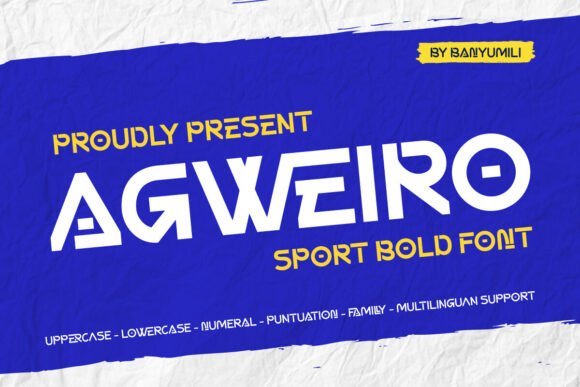
The Winning Combination: Unlocking the Power of Agweiro Font
Do you remember that moment when your favorite team scores a winning goal, and you feel an instant rush of adrenaline and excitement? The thrill of competition is what drives us, and it’s what inspires designers to create bold and captivating visual identities for sports brands. To elevate your sports designs and capture that winning spirit, you need a font that’s just as bold and dynamic as the athletes who use it.
That’s where Agweiro Font comes in – a powerful and angular typeface designed specifically for sports-related designs. With its confident and impactful style, Agweiro Font is the perfect tool for creating team logos, posters, and other sports-themed visual elements that leave a lasting impression.
Whether you’re a seasoned designer or just starting out, Agweiro Font offers a wealth of creative possibilities and value, from its style alternatives to multilingual support. By incorporating this font into your designs, you’ll be able to tap into the same energy and determination that drives athletes to win.
Agweiro Font Key Features
- Font Family: Agweiro Font is a sans-serif typeface designed to be highly legible in digital environments.
- Unique Characteristics: Agweiro Font features a unique blend of modern and geometric elements, resulting in a clean and highly readable design.
- Language Support: Supports a wide range of languages, including Latin, Greek, and Cyrillic alphabets.
Designer Review: Agweiro Font
I recently had the chance to work with Agweiro Font, and I have to say it’s a mixed bag. Here are my thoughts on what works and what doesn’t.
- Agweiro Font has a beautiful, elegant feel to it. The lines are smooth, and the curves are well-executed.
- The font is highly legible, even at smaller font sizes.
- The font family is quite versatile, with multiple weights and styles to choose from.
- One of the biggest issues I had with Agweiro Font is the lack of OpenType features. This can make it difficult to achieve certain typography effects.
- The font is also quite heavy, which can make it difficult to use in situations where a more lightweight font is needed.
Overall, I think Agweiro Font is a solid choice for projects where you need a elegant, high-legibility font. However, if you need a font with advanced OpenType features or a lightweight design, you may want to consider other options.
Agweiro Font is a versatile font that can be used in various design contexts. Some common use cases include:
- Creating eye-catching headlines and titles.
- Designing brochures, flyers, and other marketing materials.
- Creating presentations and reports.
- Adding a touch of elegance to digital and print designs.
Remember to experiment with different font sizes, colors, and styles to get the most out of Agweiro Font.